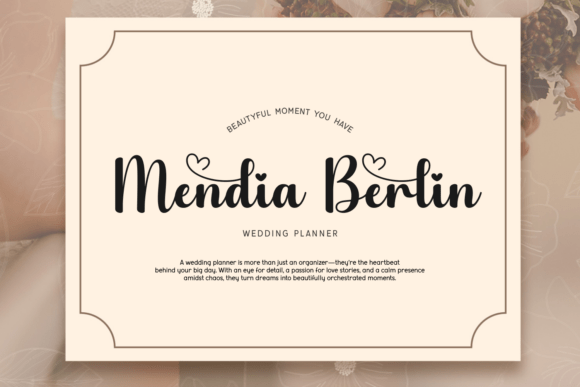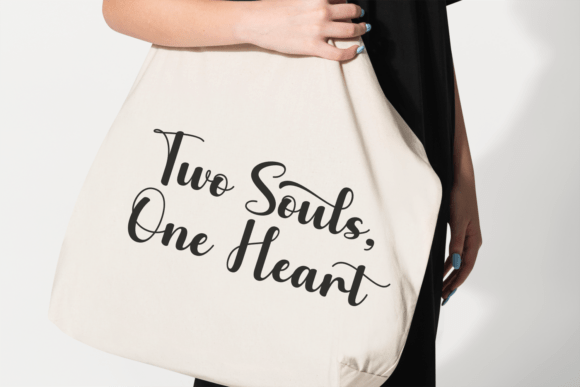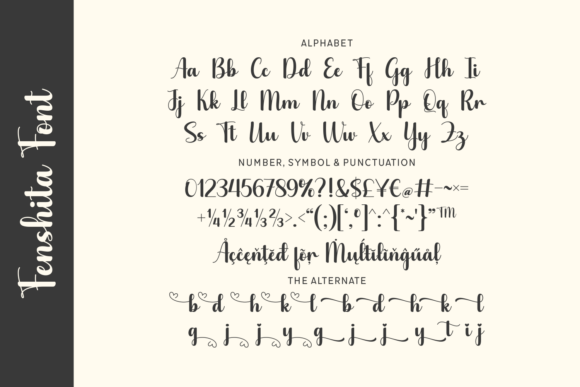
Fenshita Font: The Perfect Choice for Romantic Designs
In the world of typography, fonts play a crucial role in conveying emotions and setting the tone for a design. When it comes to creating romantic and heartfelt designs, the right font can make all the difference. This is where Fenshita Font comes in – a modern script font that is made with love and designed to add a touch of elegance and whimsy to your projects.
What Makes Fenshita Font So Special?
Fenshita Font is a beautiful, handcrafted script font that features elegant strokes, soft curves, and adorable heart-shaped swashes. Its clean, flowing style adds a touch of sophistication and charm to any design, making it perfect for a variety of projects, including wedding invitations, Valentine’s Day designs, romantic branding, and heartfelt quotes.
Perfect for Romantic Designs
Fenshita Font is specifically designed to evoke feelings of love and romance. Its elegant and flowing script makes it perfect for:
- Wedding Invitations: Add a touch of sophistication and romance to your wedding invitations with Fenshita Font. Its elegant strokes and heart-shaped swashes make it perfect for formal and informal wedding designs.
- Valentine’s Day Designs: Create beautiful and romantic designs for Valentine’s Day with Fenshita Font. Its adorable heart-shaped swashes and soft curves make it perfect for designs that require a touch of whimsy and playfulness.
- Romantic Branding: Use Fenshita Font to create a romantic and elegant brand identity for your business. Its clean and flowing style makes it perfect for logos, business cards, and packaging designs.
- Heartfelt Quotes: Add a touch of elegance and sophistication to your heartfelt quotes with Fenshita Font. Its elegant strokes and soft curves make it perfect for designs that require a touch of romance and whimsy.
Why Choose Fenshita Font?
There are many reasons why Fenshita Font is the perfect choice for your romantic designs. Here are a few:
- Unique and Handcrafted: Fenshita Font is a unique and handcrafted font that adds a touch of personality to your designs. Its elegant strokes and soft curves make it perfect for designs that require a touch of sophistication and charm.
- Elegant and Whimsical: Fenshita Font is both elegant and whimsical, making it perfect for a variety of designs. Its adorable heart-shaped swashes add a touch of playfulness and romance to your designs.
- Clean and Flowing: Fenshita Font has a clean and flowing style that makes it perfect for designs that require a touch of elegance and sophistication. Its elegant strokes and soft curves make it easy to read and understand.
How to Use Fenshita Font?
- Use it for Headlines and Titles: Use Fenshita Font for headlines and titles to add a touch of elegance and sophistication to your design. Its elegant strokes and soft curves make it perfect for designs that require a touch of romance and whimsy.
Fenshita Font is a beautiful and elegant script font that is perfect for romantic designs. Its elegant strokes, soft curves, and adorable heart-shaped swashes make it perfect for wedding invitations, Valentine’s Day designs, romantic branding, and heartfelt quotes. With its clean and flowing style, Fenshita Font adds a touch of sophistication and charm to any design. Whether you’re a designer or a crafter, Fenshita Font is the perfect choice for your next project.